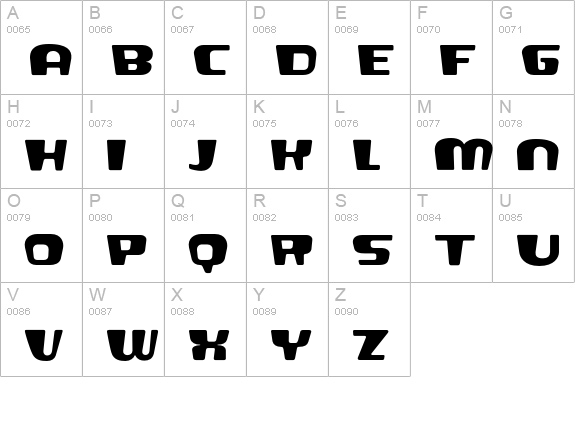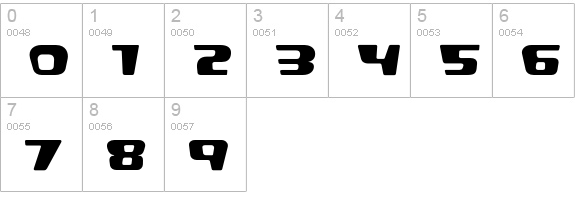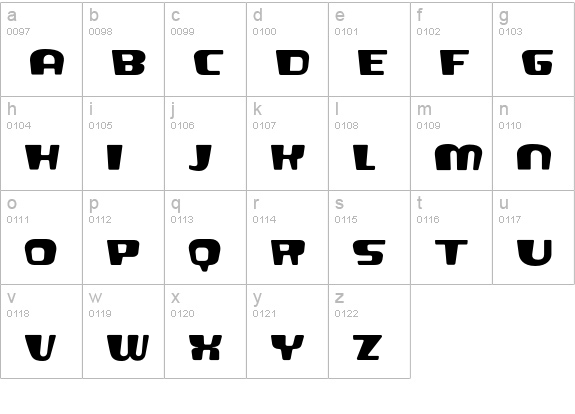
Saru-San Font Details
Introducing Saru-San, a captivating and versatile font that effortlessly combines elegance and playfulness. This unique typeface is the perfect choice for those seeking to add a touch of whimsy and sophistication to their designs. Saru-San font features a delightful mix of rounded edges and straight lines, creating a harmonious balance that is visually striking. Its carefully crafted characters exude a sense of charm and individuality, making it an ideal choice for a wide range of creative projects. With its wide range of weights and styles, Saru-San offers endless possibilities for designers, allowing them to easily create eye-catching headlines, stylish logos, or captivating typography for various purposes. Whether you're designing a children's book cover, a poster for a music festival, or a trendy brand identity, this font is sure to make a lasting impression. One of the most remarkable features of Saru-San font is that it is freely available to download exclusively at FontsMarket.com. This means that designers and enthusiasts alike can enjoy the beauty and versatility of this font without any limitations. Its accessibility empowers creativity and allows for effortless experimentation, ensuring that your designs will always stand out from the crowd. In addition to its striking aesthetics, Saru-San font also boasts exceptional legibility and readability, making it a reliable choice for both print and digital media. Its clean and well-defined characters ensure that your message is conveyed with clarity and impact, guaranteeing that your audience will be captivated by the visual experience. Embrace the freedom of creativity with Saru-San font. Download it today at FontsMarket.com and unlock a world of design possibilities. Whether you're a professional designer or an aspiring creative, this font will undoubtedly become an indispensable tool in your arsenal, allowing you to bring your visions to life with ease and elegance. Let Saru-San font be your artistic companion, elevating your designs to new heights of excellence.